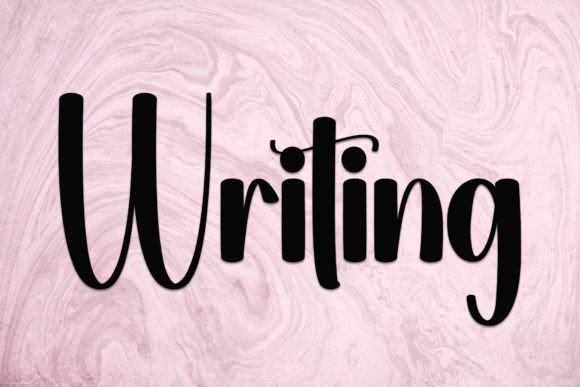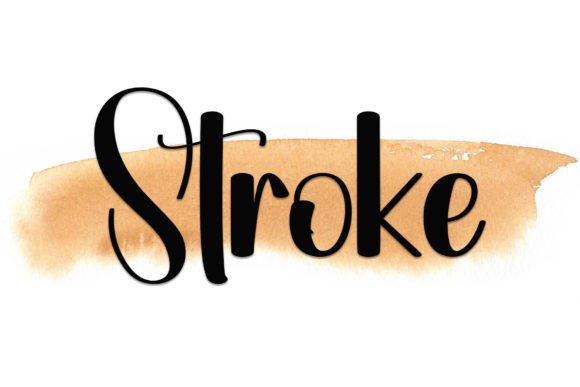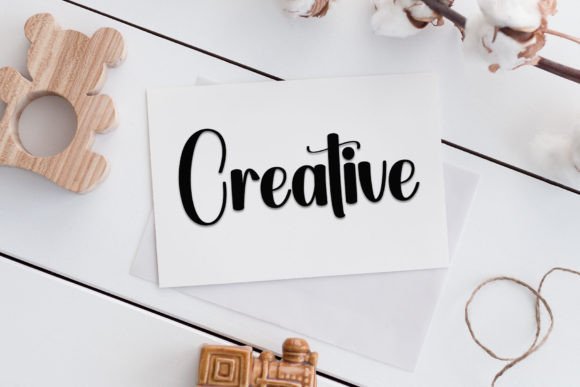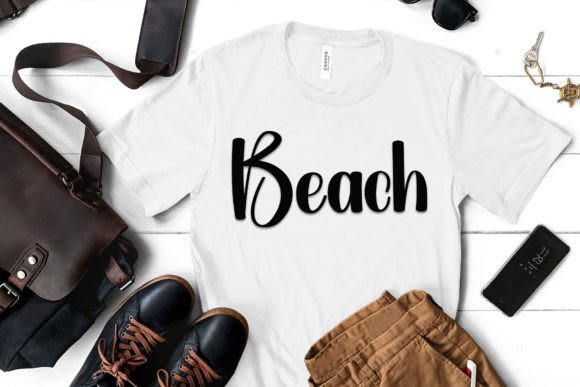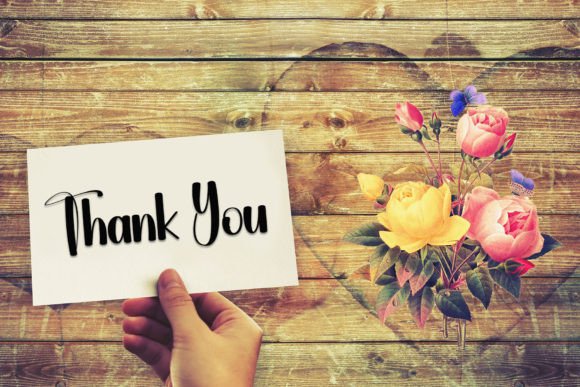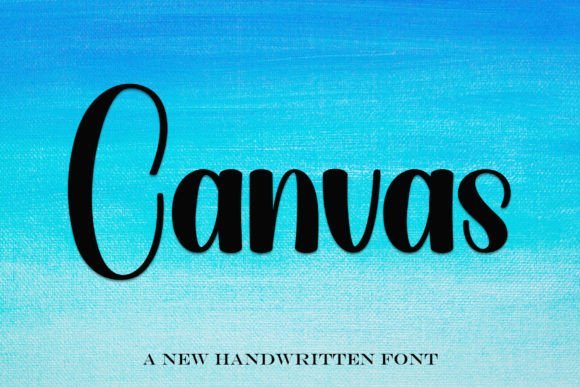
Discover the Timeless Charm of the Canvas Font
Remember the moment when you stumbled upon a unique font that sparked a creative idea? You couldn’t wait to start experimenting and see where it would take you. For designers, finding the perfect font can be a game-changer. It’s the difference between a design that’s just good and one that’s truly remarkable.
Enter the Canvas Font, a beautiful handwritten font that exudes elegance and sophistication. This font is designed to help you create stunning designs that leave a lasting impression. With its distinct and timeless style, the Canvas Font is the perfect addition to any project.
Whether you’re a seasoned designer or just starting out, the Canvas Font is a valuable asset to have in your toolkit. Its versatility and unique character make it a must-have for anyone looking to add a touch of personality to their designs.
Canvas Font Key Features
Canvas Font Review
As a designer, I was excited to try out the Canvas Font, and overall, I have mixed feelings about it. Here are my honest thoughts.
- The font is highly customizable, with a wide range of options for color, size, and style.
- It’s incredibly versatile and can be used for a variety of projects, from logos to infographics.
- The font is highly scalable, making it perfect for use in different contexts, from small text to large headings.
- It’s also highly compatible with most design software, making it easy to integrate into your workflow.
- The font can be quite overwhelming if not used carefully, as it can be difficult to read in certain contexts.
- It may not be the best choice for projects that require a more subtle or minimalist approach.
- The font can also be quite distracting if used in large quantities or in combination with other bold fonts.
Overall, I think the Canvas Font is a great tool to have in your design arsenal, but it’s not perfect. With careful use and consideration of the limitations, it can be a powerful and effective choice for a variety of projects. However, it’s not the best choice for every project, and designers should use it judiciously.
Practical Application Guide: Canvas Font
Canvas Font is ideal for:
- Designing creative and unique text-based graphics.
- Creating eye-catching titles and headings.
- Adding a personal touch to your designs.